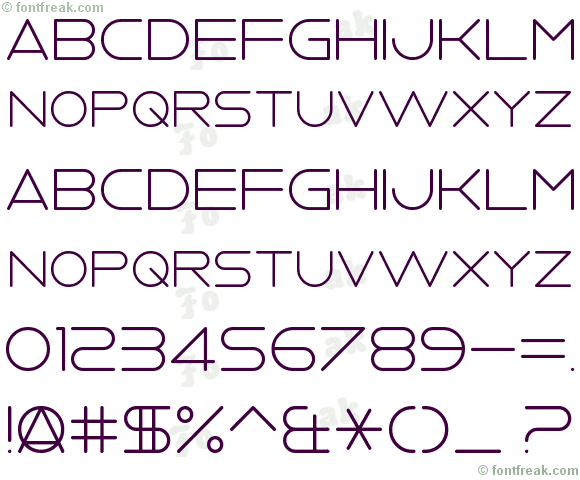
Vermin Vibes 2 Nightclub
Vermin Vibes 2 Nightclub is a striking display typeface designed by Andrew McCluskey, showcasing a modern and edgy aesthetic that captures the essence of nightlife. This font is characterized by its sleek, geometric lines and clean strokes, making it an excellent choice for visually dynamic projects. With a consistent stroke weight and minimal contrast, the typeface exudes a contemporary feel while allowing for easy readability. The spacing between characters is thoughtfully designed to enhance legibility, ensuring that the text stands out in any application.
Best suited for creative endeavors, Vermin Vibes 2 Nightclub shines in a variety of contexts. It is ideal for nightclub flyers and event posters, where its bold presence can effectively attract attention. Additionally, it works well for branding projects, especially for businesses in the entertainment or nightlife sectors. Graphic designers may find this font perfect for creating eye-catching social media graphics and promotional materials that require a modern touch. Furthermore, its unique style lends itself to album covers, where artistic expression is paramount.
The target audience for this font includes graphic designers, small business owners, and content creators who seek to make a visual impact. Whether you are launching a new brand or promoting an event, Vermin Vibes 2 Nightclub allows for creative flexibility while conveying a sense of energy and excitement.
What sets this font apart is its ability to blend sophistication with a playful vibe, making it versatile enough for both formal and casual applications. The Vermin Vibes 2 Nightclub font free download offers an opportunity for creatives to infuse their projects with personality and flair, ensuring that their designs resonate with audiences effectively.